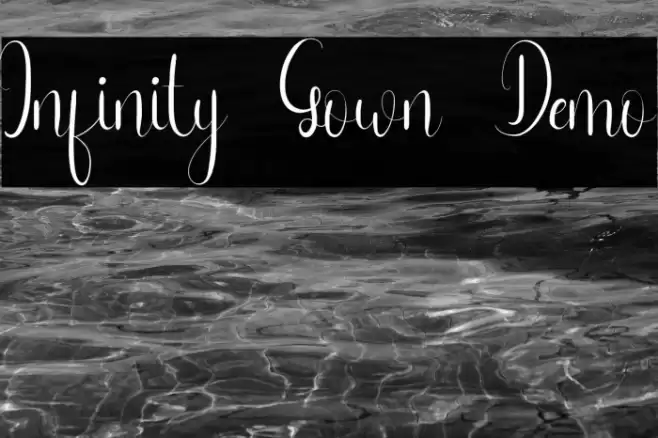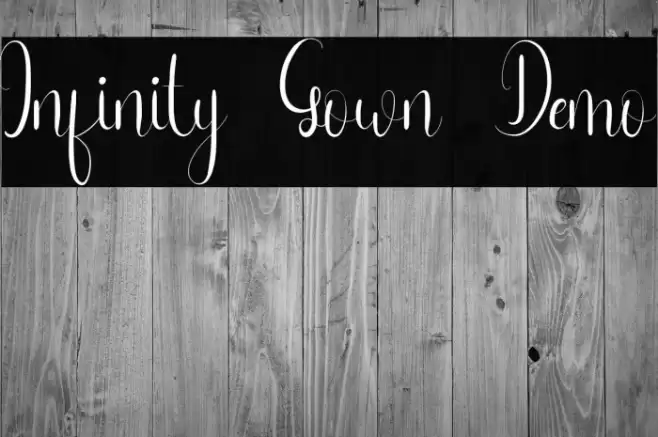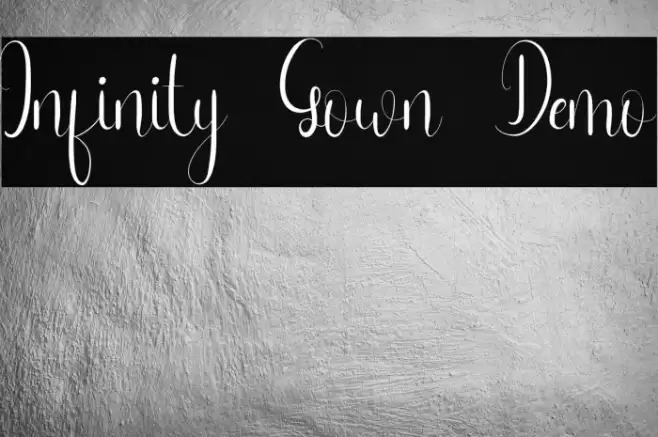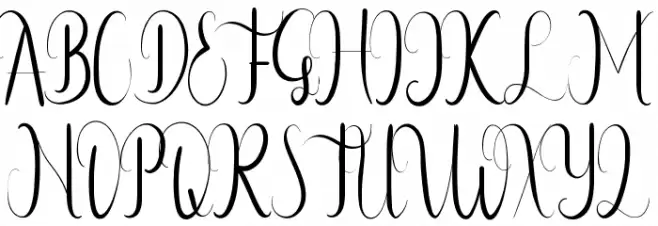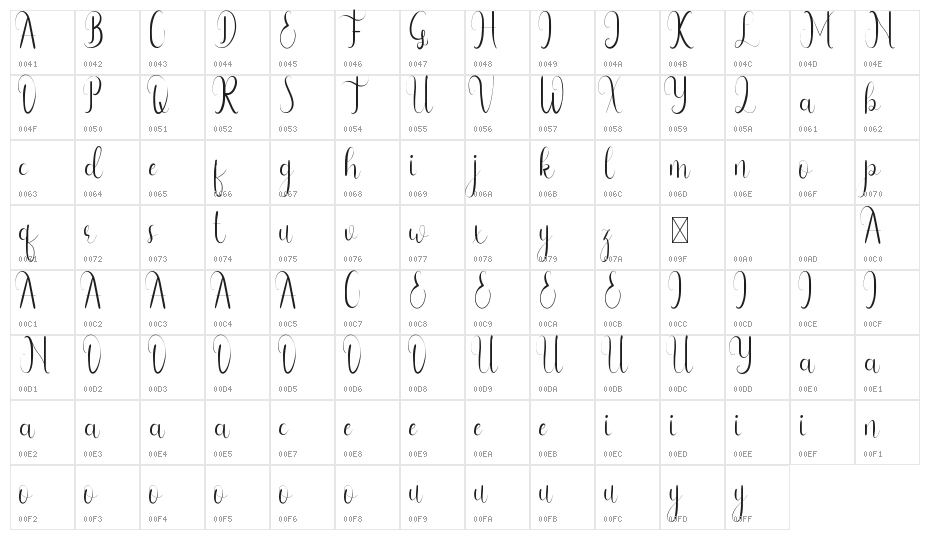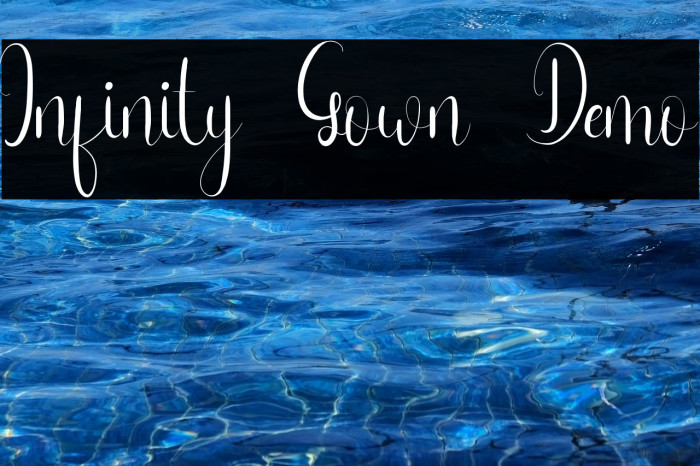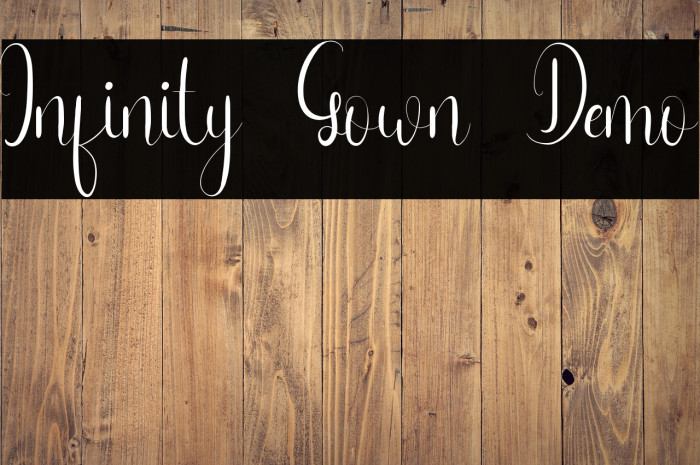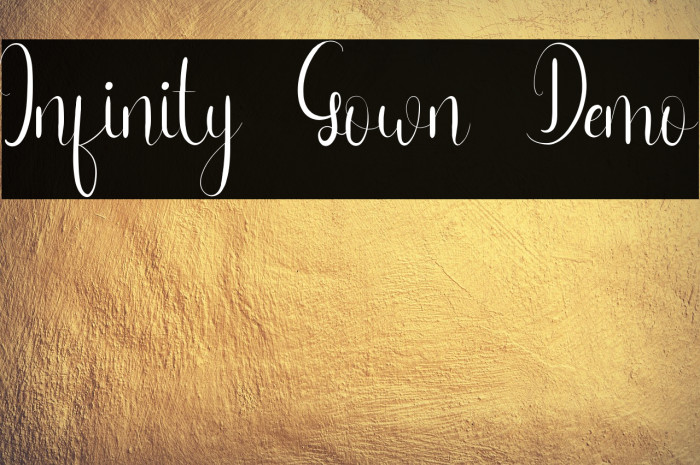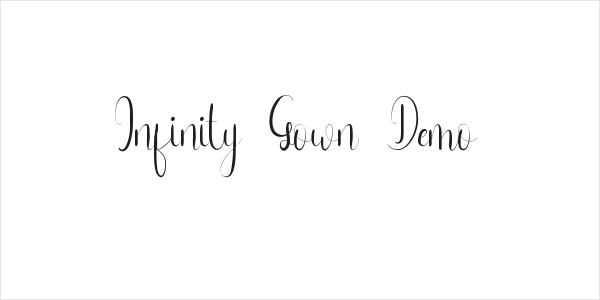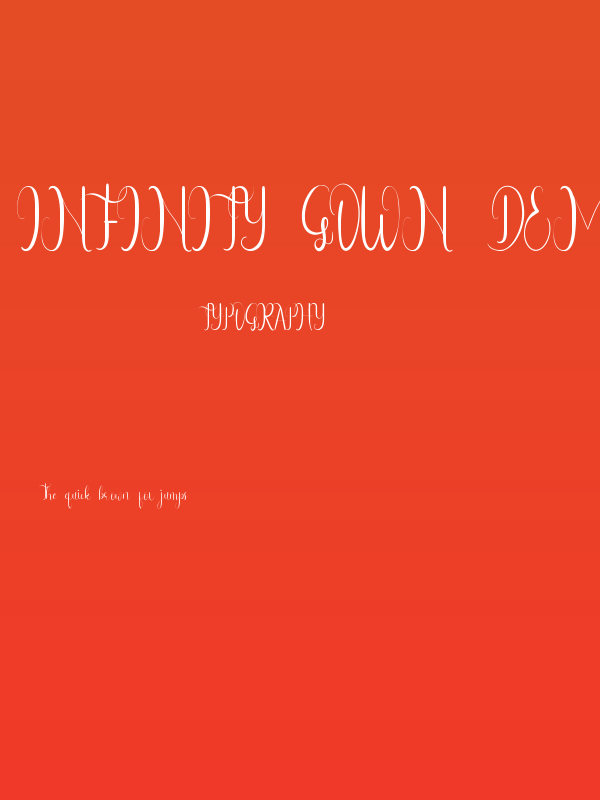
Infinity Gown Demo Font
Infinity Gown Demo Description
This elegant script font features a flowing, cursive style with intricate loops and swashes that give it a sophisticated and graceful appearance. The uppercase letters are particularly ornate, with extended flourishes that add a touch of drama and flair. The lowercase letters maintain a consistent style, with smooth curves and a slightly condensed form that enhances readability. The font's overall design is both decorative and functional, making it suitable for a variety of creative applications. Its high contrast in stroke thickness adds to its visual appeal, while the character spacing is relatively tight, ensuring a cohesive and connected look. This font is ideal for projects that require a touch of elegance and refinement.
A flowing, elegant script font with intricate loops and high contrast from Regular fonts.
- Proposed Projects: Wedding invitations, luxury branding, elegant stationery, and decorative headlines.
- Character Spacing: Tight
- Overall Style: Elegant, Decorative
- Use Case: Headlines, Invitations, Branding